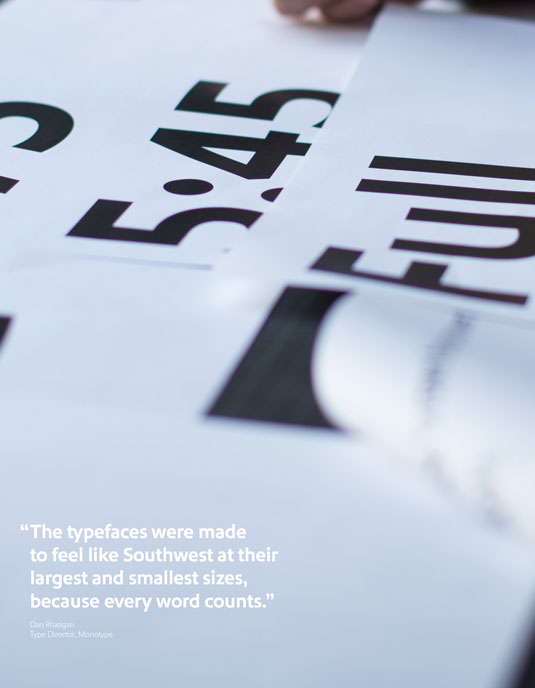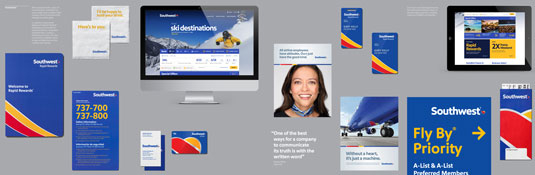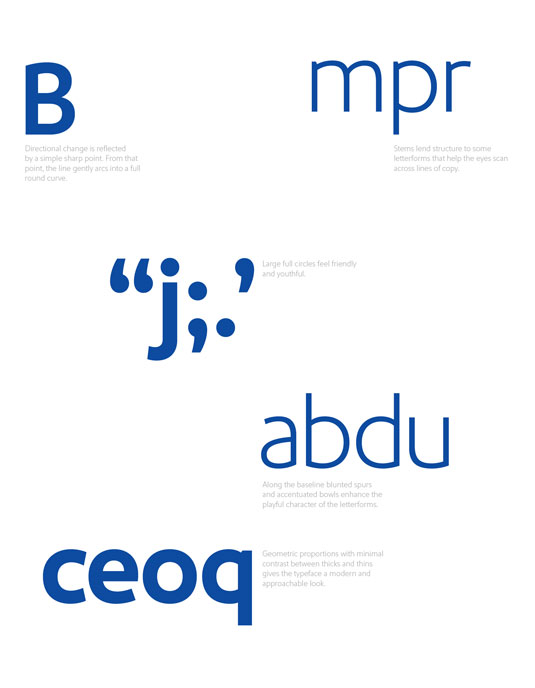
The fonts that will make your brand trustworthy
How a rebranding project led to research into typefaces and the emotions they can spark.
Monotype has introduced its Brand with Heart Collection – a curated palette of typefaces that make brands feel, among other things, more trustworthy.
The collection was inspired by recent partnership between Lippincott – a global branding agency - and Monotype. The pair designed a new brand identity and custom typeface for Southwest Airlines.
Customers are changing
"In recent years, consumers have grown generally distrustful of institutions who communicate by declaring, preaching or selling. This cultural shift has caused brands to embrace their human side by listening to consumers, being more real and open and conveying their message in ways that are simple and honest," said Rodney Abbot, Senior Partner at Lippincott.
The extensive Southwest Airlines rebranding project saw the creation of a new typeface – Southwest Sans.
Looking closely at feelings
According to Monotype Type Director Dan Rhatigan, "When called into service, a typeface can uniquely express a variety of moods and tones without losing its family identity. The Southwest Sans typefaces were designed to feel like Southwest at their largest and smallest sizes, because every word counts."
The trust collection
Inspired by Southwest Sans' success, Abbot set about exploring the role typography plays in making a brand feel human and trustworthy. This work became The Brands with Heart Collection.
Abbot says: "Shedding institutional habits and learning to speak with humanity is a challenging journey. It can't be faked or fabricated. The Brands with Heart Collection will help to guide brands along that journey."